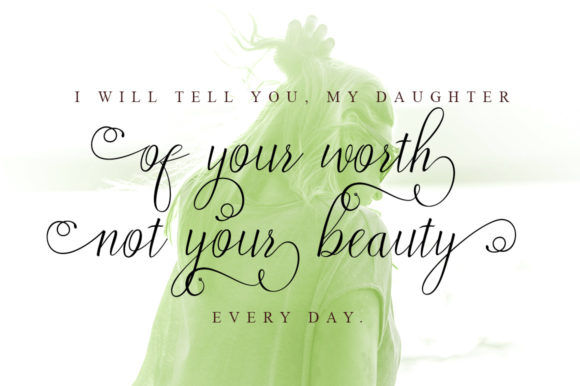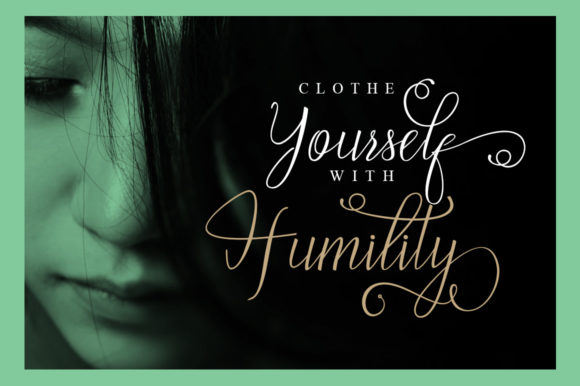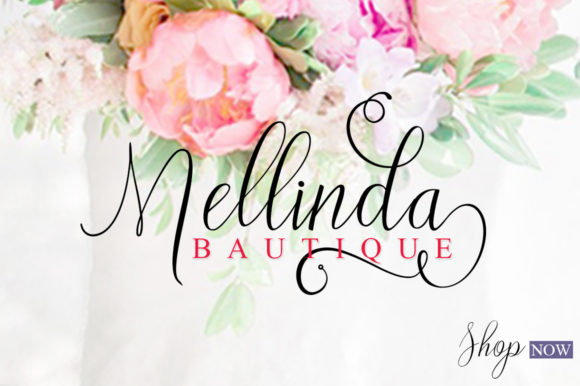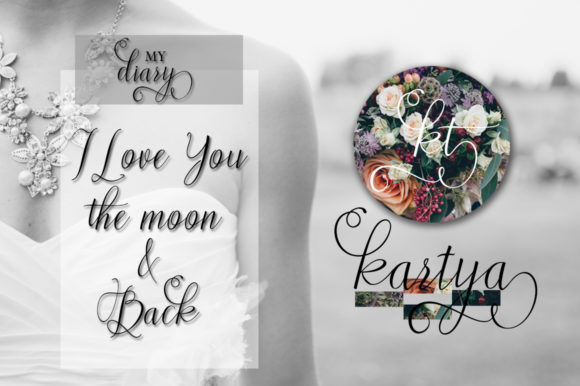
The Perfect Blend of Handmade Charm and Elegant Sophistication
Have you ever found yourself scribbling out ideas in a notebook, only to later realize that your handwriting has become the perfect accompaniment to your creative vision? For many designers, this is the moment when inspiration strikes, and a new project begins to take shape. It’s in these moments that the right font can make all the difference, elevating your work from ordinary to extraordinary.
Enter the Bribttani Script Font, a fresh and modern script font that combines the charm of handmade calligraphy with the elegance of a classic touch. With its versatility and timeless appeal, this font is perfect for a wide range of applications, from greeting cards and magazine titles to business cards and wedding invitations. For designers, the Bribttani Script Font offers a valuable asset – a tool that can help bring their creative vision to life with precision and style.
Brittani Script Font Key Features
- Unique Characteristics: Brittani Script Font features a beautiful, flowing script with subtle flair and connection between letters, making it perfect for invitations, signage, and other creative projects.
- Font Style: This script font is available in a single style, which is ideal for creating a consistent and elegant look across various design projects.
Bribttani Script Font Review
Overall, I think the Bribttani Script Font has a certain charm to it ✨. The flowing connections between the letters give it a unique, handwritten feel that’s perfect for creative projects like wedding invitations, greeting cards, or even social media graphics. The font also has a nice range of variations, from light to bold, which can be useful for emphasizing certain words or phrases.
However, there are some limitations to consider ⚠️. For one, the font may not be suitable for large blocks of text, as the irregularities in the letterforms can make it difficult to read. Additionally, the font may not be compatible with all operating systems or devices, which could lead to display issues.
Here are some specific pros and cons:
- ✨ Unique, handwritten feel that’s perfect for creative projects
- ✨ Wide range of variations (light to bold)
- ⚠️ May not be suitable for large blocks of text
- ⚠️ May have compatibility issues with certain operating systems or devices
Overall, I think the Bribttani Script Font is a great choice for designers who want to add a touch of personality to their projects. Just be mindful of its limitations and use it in contexts where its unique qualities can shine.
Tips for Getting the Most Out of Brittani Script Font
To get the most out of Brittani Script Font, try the following:
- Use it for titles and headings to add a touch of elegance.
- Combine it with other fonts for a unique and interesting look.
- Experiment with different font sizes and colors to create a cohesive design.
Common Use Cases for Brittani Script Font
The Brittani Script Font is perfect for: